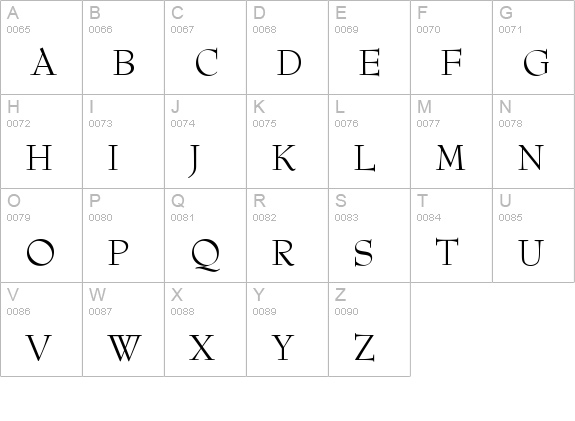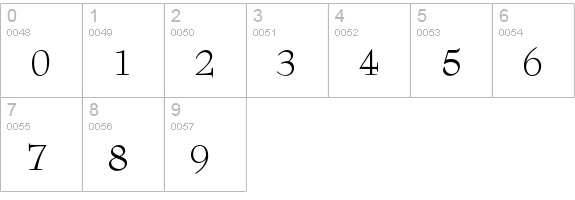
Bernhard Modern Roman Font Details
Bernhard Modern Roman is a classic and elegant serif font that exudes sophistication and timelessness. With its clean lines and graceful curves, this typeface is perfect for adding a touch of refinement to any design project. The striking contrast between thick and thin strokes gives Bernhard Modern Roman a sense of balance and harmony, making it an ideal choice for both headings and body text. What sets Bernhard Modern Roman apart is its versatility – whether you're working on a print publication, a website, or a branding project, this font will elevate your design to the next level. Its readability and legibility make it a popular choice among designers and typographers alike. The best part? Bernhard Modern Roman is available for free download at FontsMarket.com. So go ahead and add this beautiful font to your collection today – you won't be disappointed!